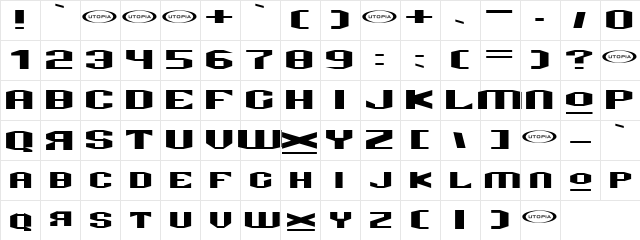
Valkyro Regular
Design Context for Valkyro Typeface
Valkyro is a composed and adaptable typeface that performs quietly and consistently across a wide range of design contexts.